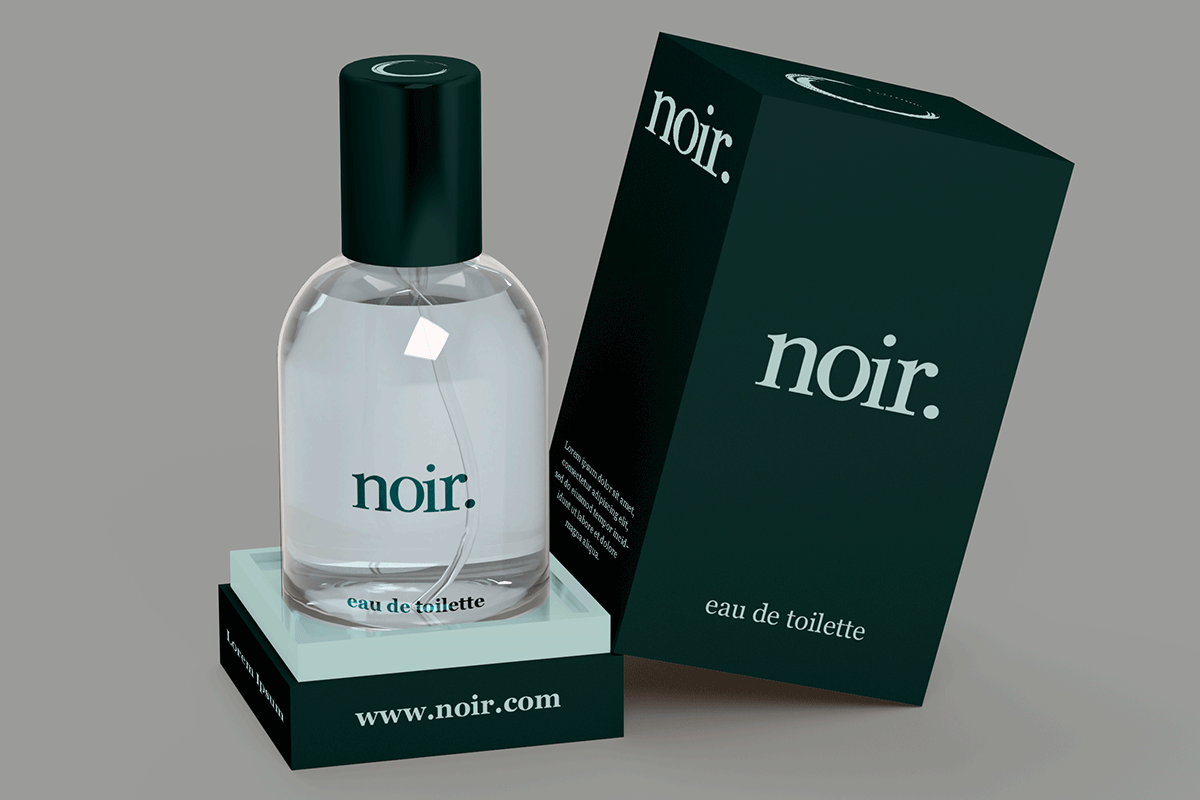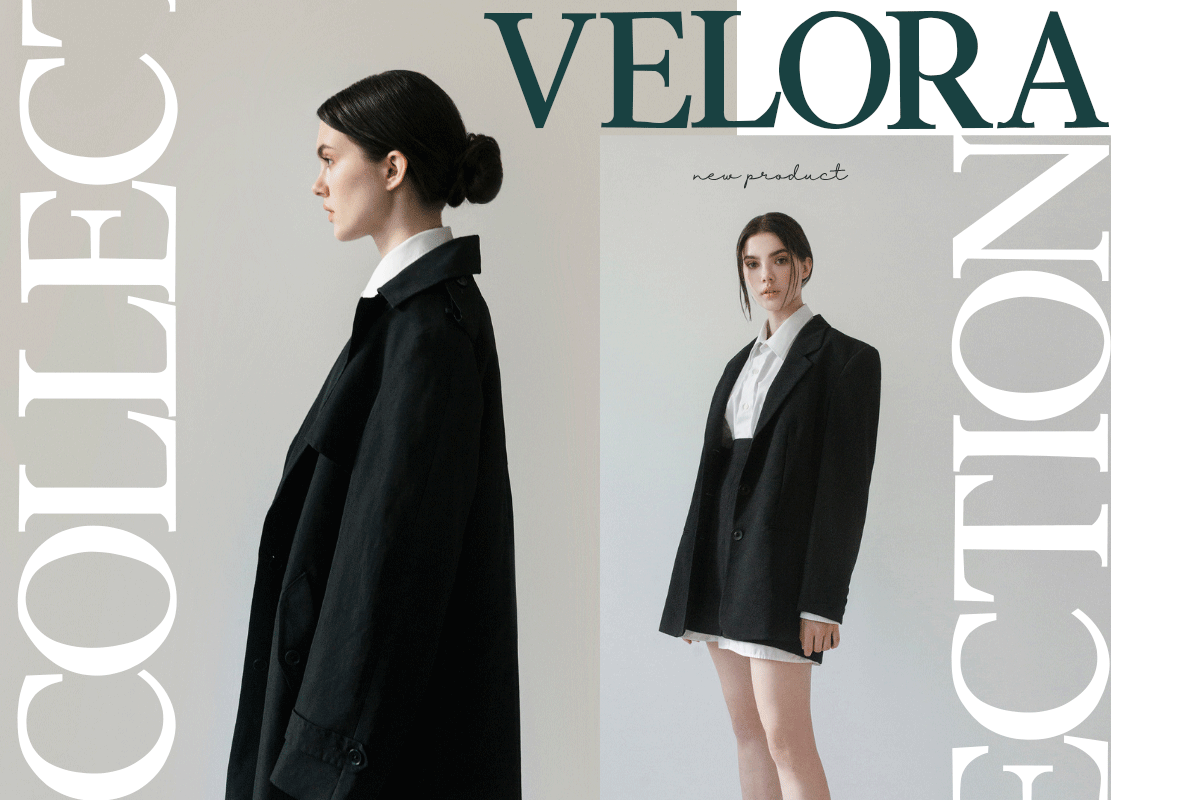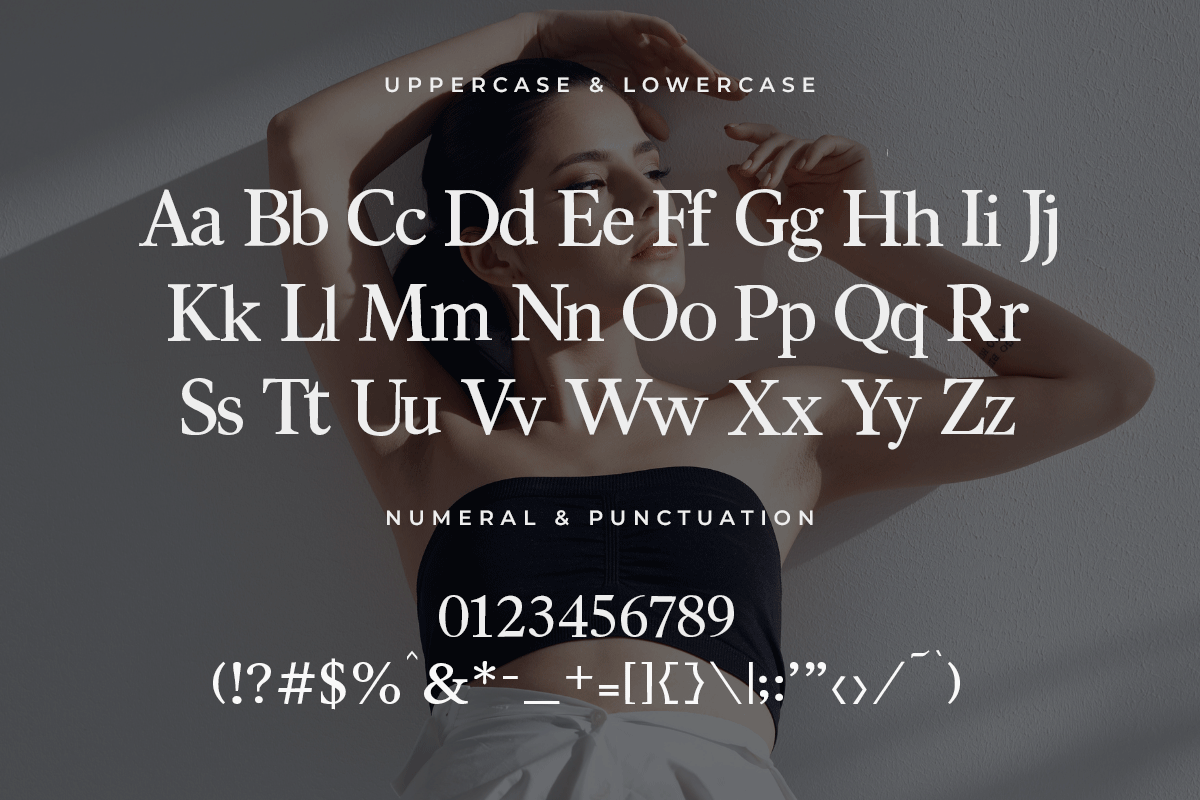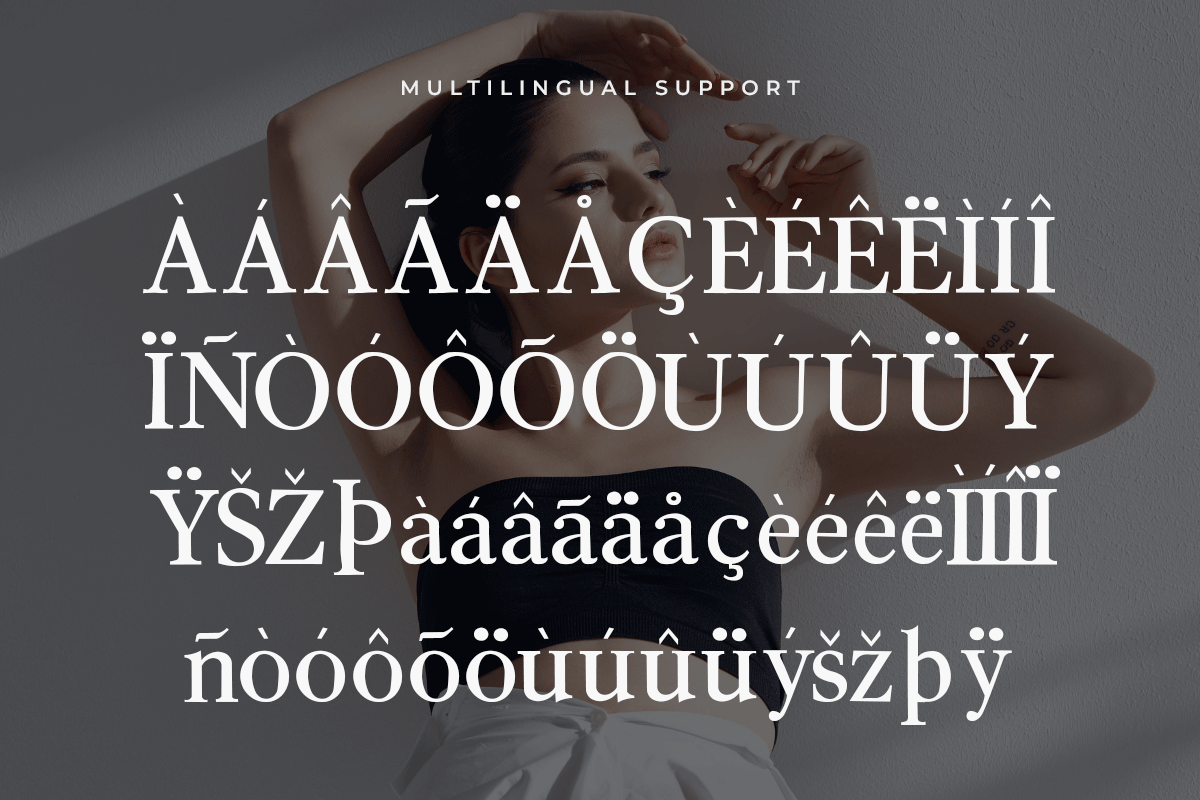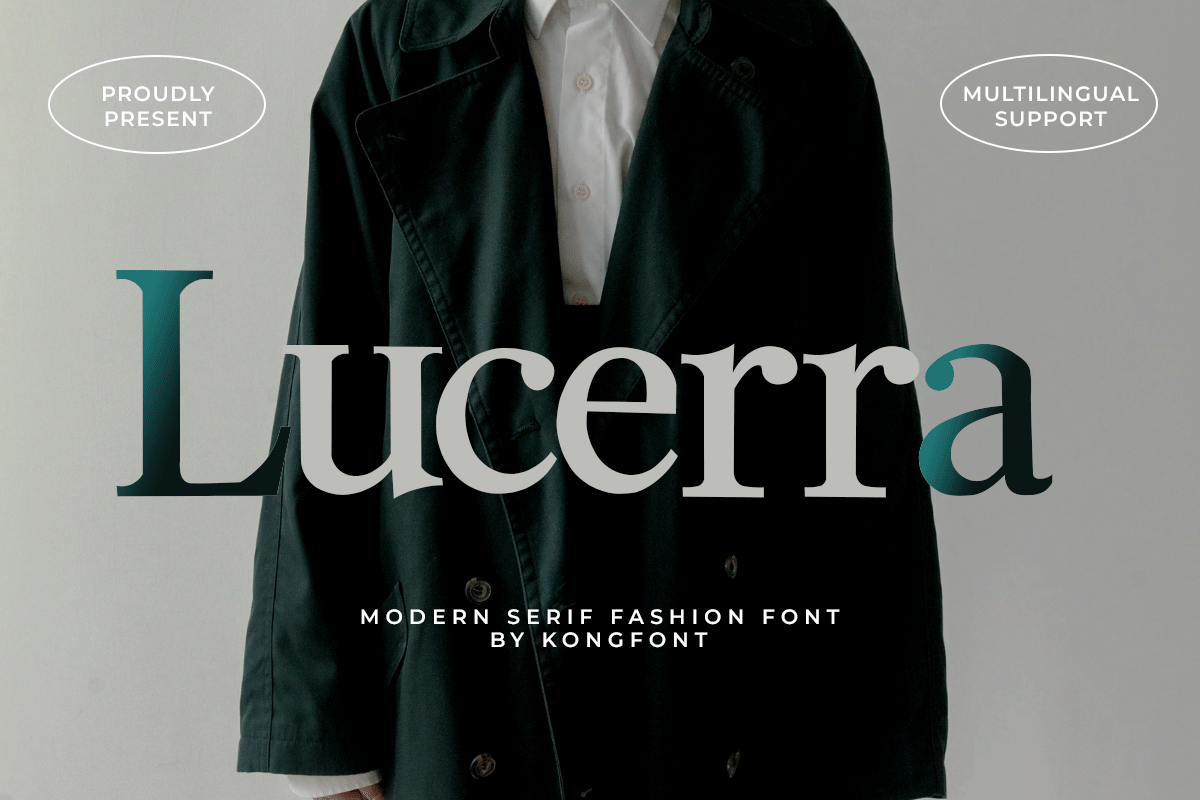
Lucerra A Modern Luxury Serif Font is a sophisticated modern serif typeface crafted for luxury branding, high-end fashion, editorial design, and elegant visual identities. Combining timeless serif beauty with contemporary proportions, Lucerra A Modern Luxury Serif Font delivers a refined aesthetic that feels both classic and fashion-forward.
Designed with graceful curves, sharp contrasts, and stylish letterforms, Lucerra A Modern Luxury Serif Font creates a strong visual presence while maintaining exceptional readability. Its elegant character makes it perfect for premium brands seeking a distinctive and memorable look.
Whether used for fashion campaigns, luxury packaging, magazine headlines, cosmetics branding, wedding stationery, or social media content, Lucerra A Modern Luxury Serif Font adds a touch of sophistication and modern elegance to every project.